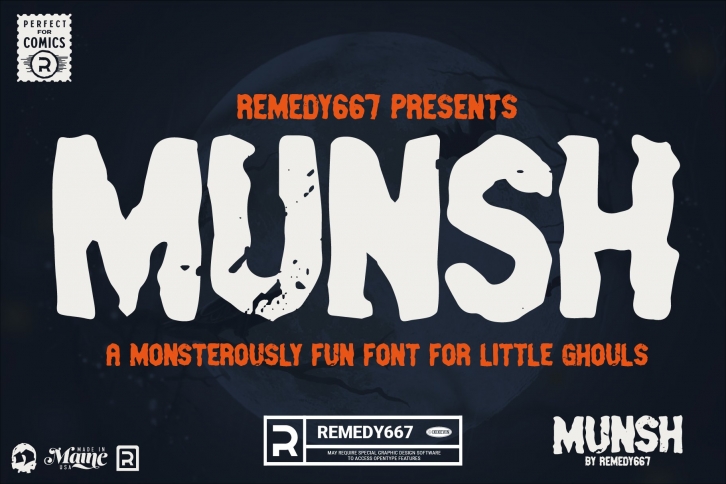
Munsh is a spooky fun font for little’s and grown up ghouls alike. It’s playful, fun, and just slightly sinister if needed.
Munsh is an all caps, gritty sanss serif typeface. Perfect for children’s books, movie posters, comics, t-shirts or any other spooky design you can think up.